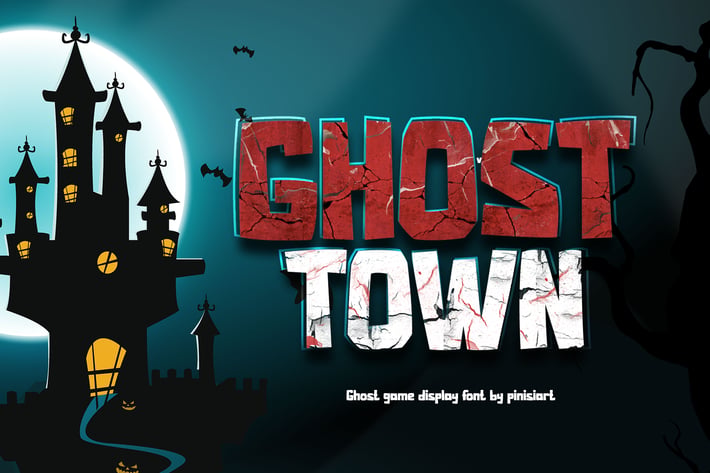
Ghost Town - Game Display Font
The dark and terror, the cold breeze and screaking tree branch, Ghost Town will emphasize the fear to your already frightening event.